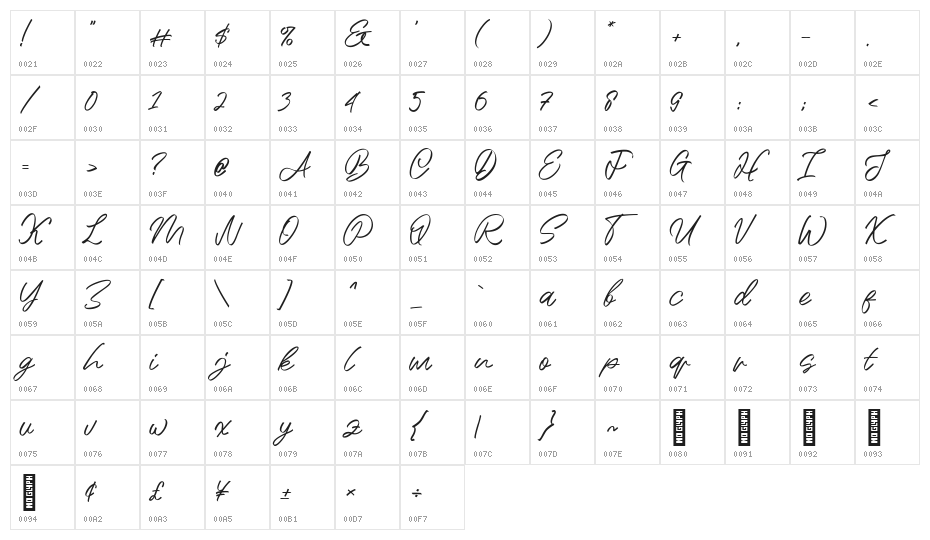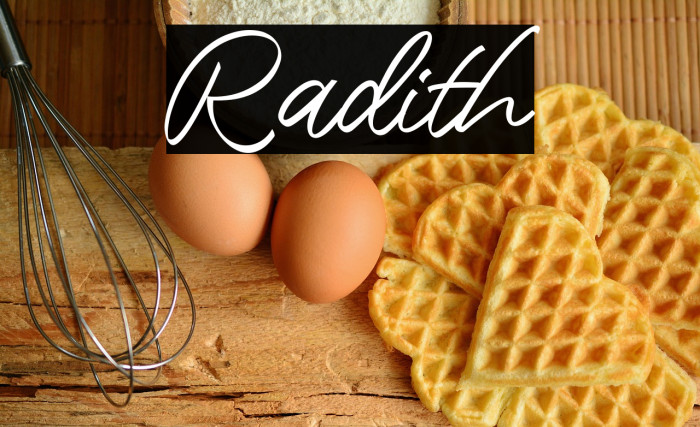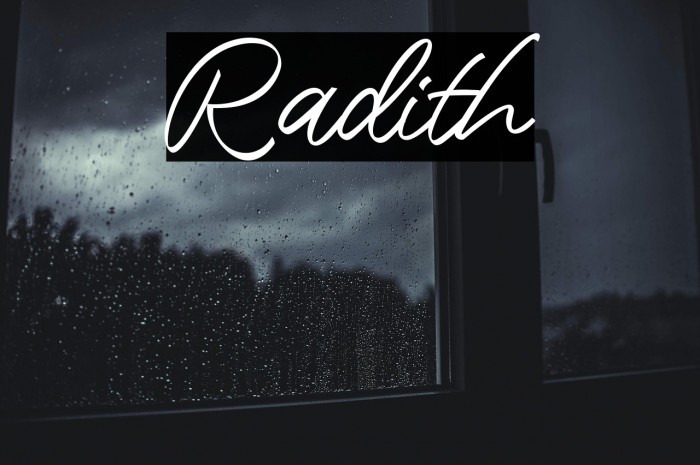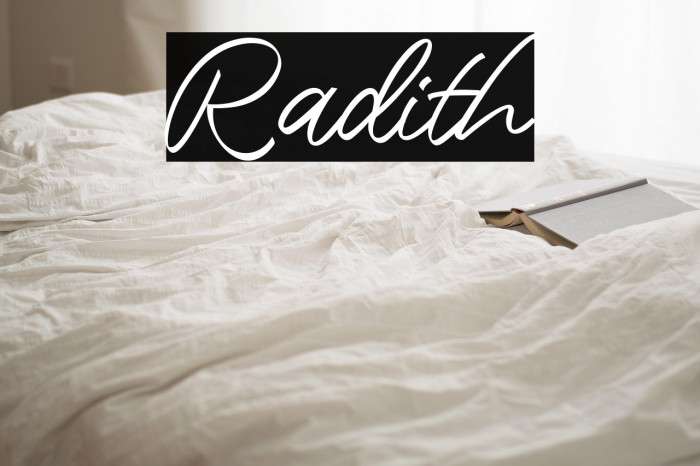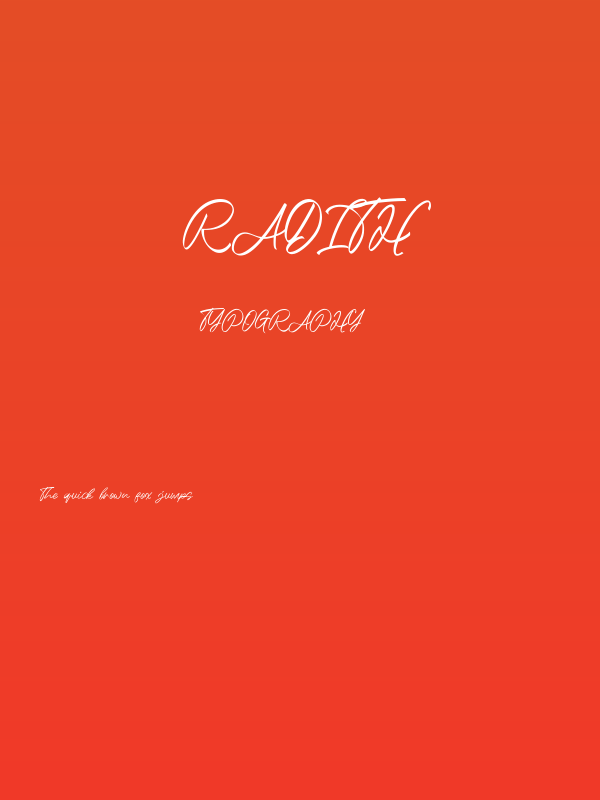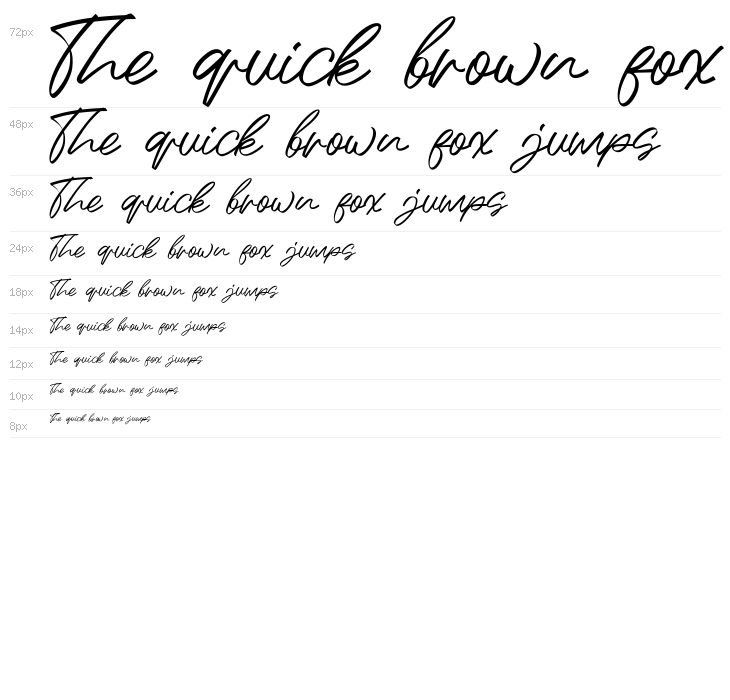
Radith Font
Radith Description
This font exudes a lively and dynamic character with its fluid, cursive script style. The letters are interconnected, creating a seamless flow that mimics natural handwriting. The uppercase letters are elegantly elongated, while the lowercase letters maintain a consistent baseline, enhancing readability. The numerals and special characters are crafted with the same attention to detail, ensuring uniformity across the font. The strokes are moderately thick, providing a balanced contrast that is neither too bold nor too light. This font is perfect for projects that require a personal touch, such as invitations, greeting cards, or branding materials.
Use CaseLogos, Headlines, Artistic projects
Proposed ProjectsIdeal for invitations, greeting cards, personal branding, and artistic projects.